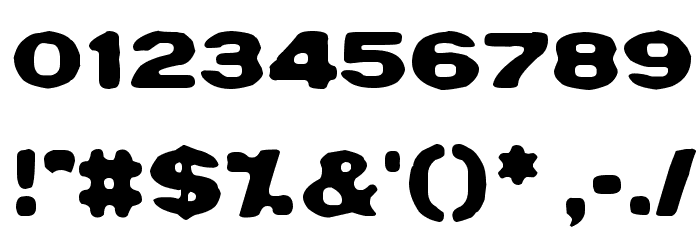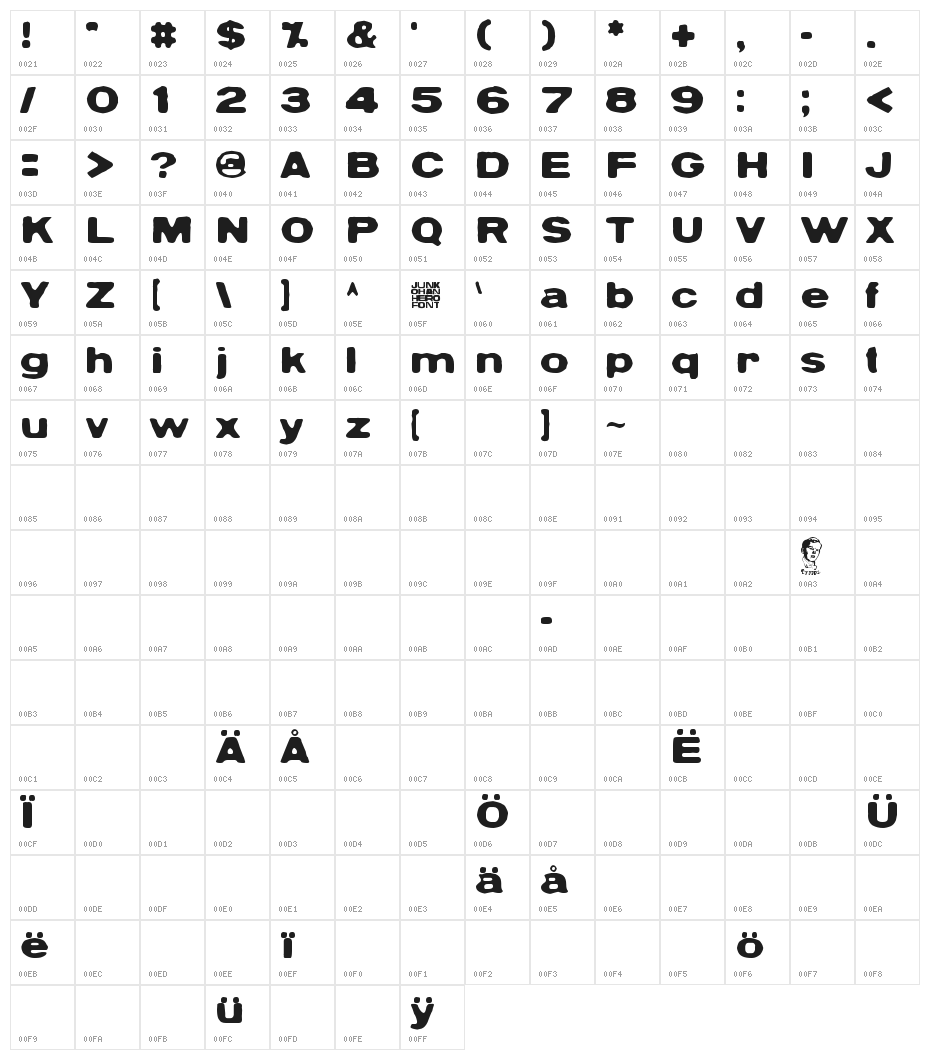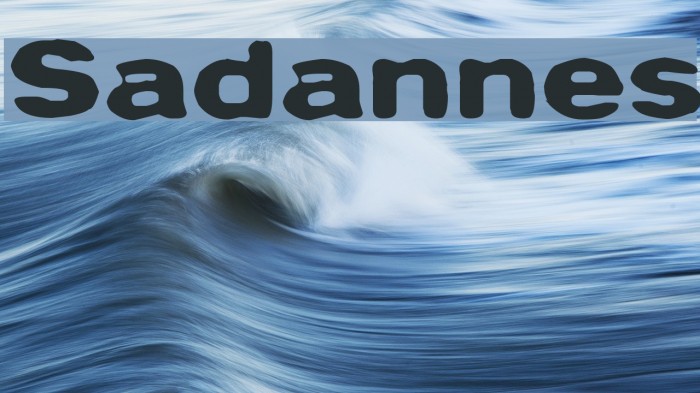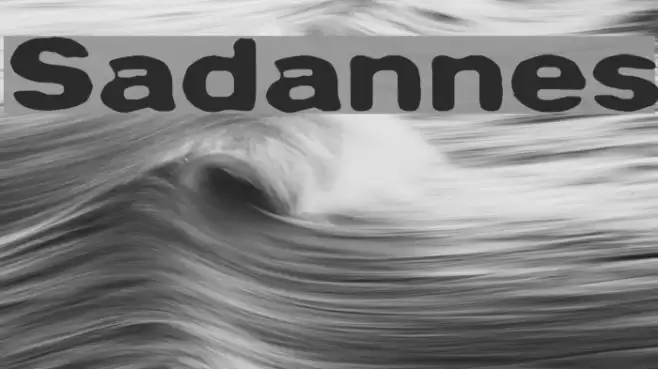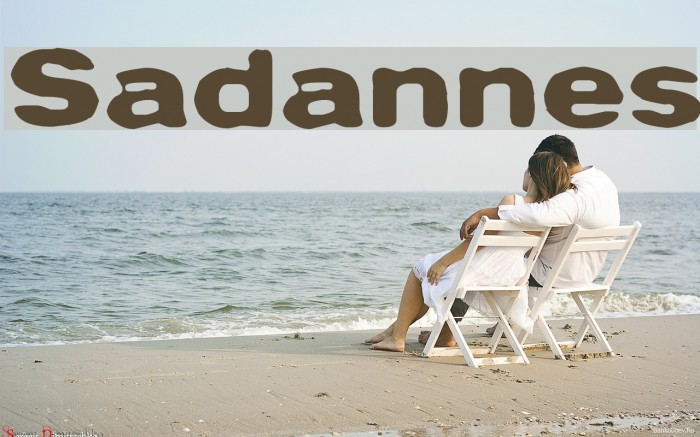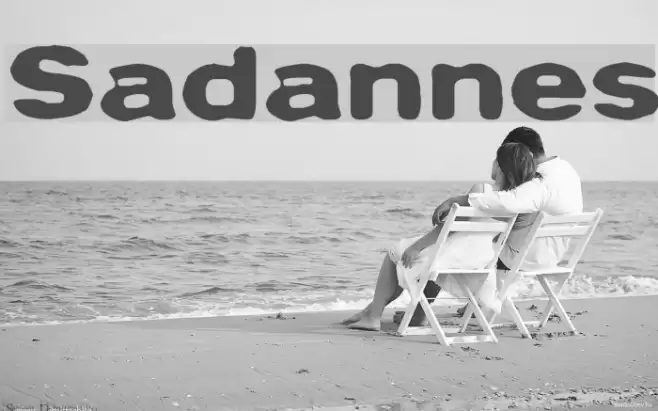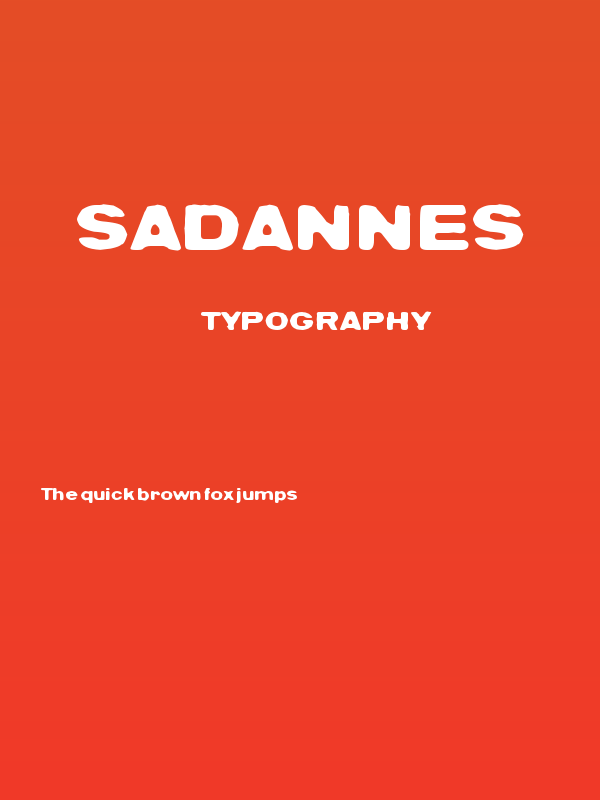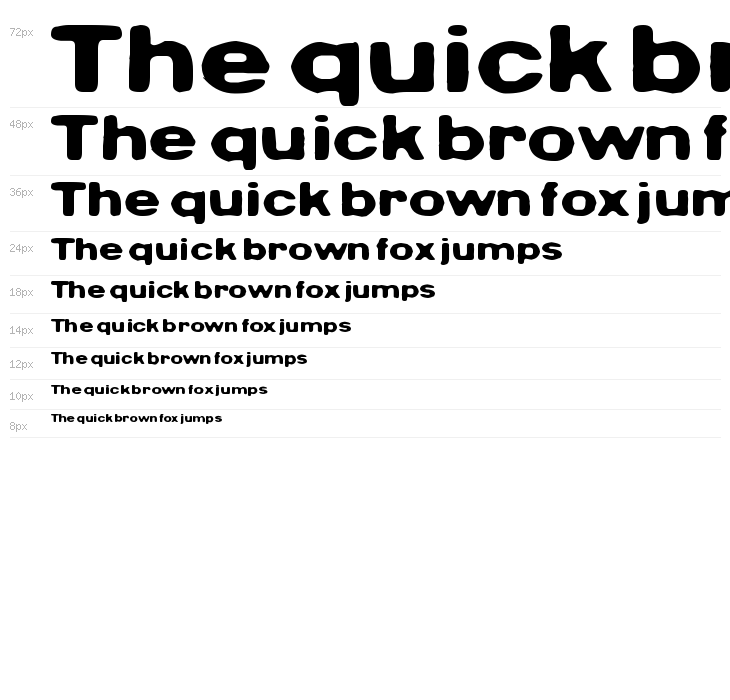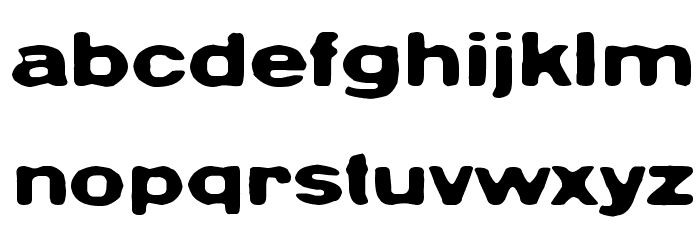
Sadannes Font
Sadannes Description
This font features a bold and playful style with rounded edges and a slightly irregular shape, giving it a friendly and approachable appearance. The characters are thick and substantial, making them highly visible and impactful. The uppercase and lowercase letters maintain a consistent weight, while the numbers and special characters are designed to complement the overall style. The font's unique character shapes add a touch of whimsy, making it suitable for creative and informal projects.
Overall StylePlayful, Whimsical
Use CaseHeadlines, Posters, Branding
Proposed ProjectsIdeal for children's books, playful branding, posters, and creative designs.